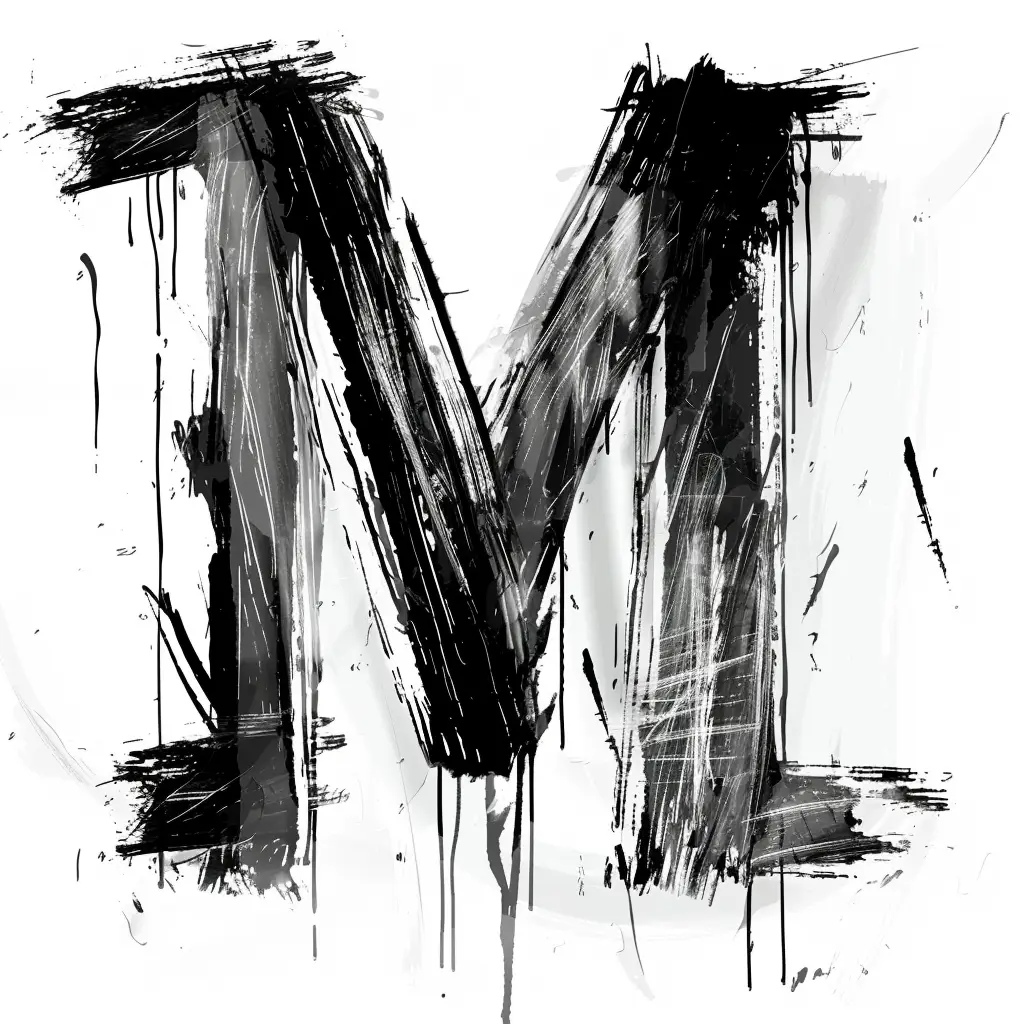
The image features a stylized, abstract letter "M" rendered in a rough, brushstroke-like style. It uses a monochromatic palette of black and white, with textured, dripping, and layered strokes creating a dynamic, artistic effect. The composition emphasizes bold, uneven lines and splatters, giving it a raw, expressive visual quality.